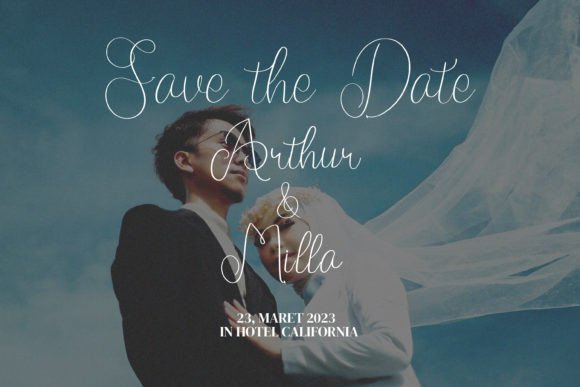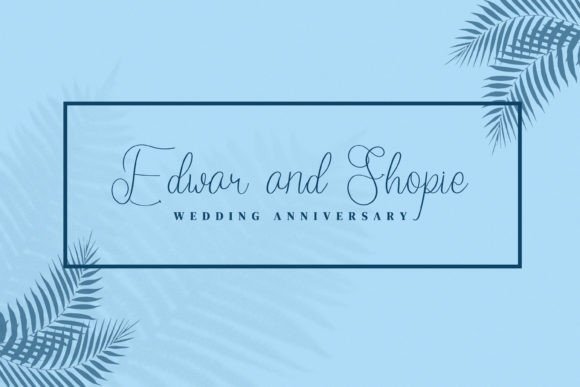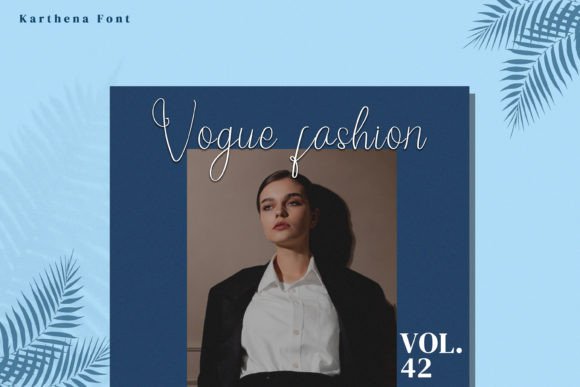
Introduction to Karthena Font
Have you ever been working on a creative project, pouring your heart and soul into every detail, only to realize that the perfect font is missing? This is a common challenge designers face, but today, we’re excited to introduce you to a game-changing design resource: Karthena Font. This elegant and charming script font is sure to elevate your next design project, whether it’s a wedding invitation, a logo, or a simple thank you card.
Karthena Font is a high-quality design asset that’s perfect for adding a handwritten touch to your creative projects. With its beautiful, flowing lines and subtle nuances, this font is sure to capture the attention of your audience. Plus, its versatility makes it an ideal choice for a wide range of designs, from business cards to greeting cards, and everything in between.
Key Features of Karthena Font
- Unique, elegant design suitable for a variety of applications, from logos to typography
Honest Review: Karthena Font
I recently stumbled upon the Karthena Font, a design resource that caught my attention for its unique and elegant style. This high quality font is perfect for any creative project that requires a touch of sophistication and refinement.
- ✨ Beautifully crafted letterforms with a sense of fluidity and movement
- ✨ Highly versatile, suitable for a wide range of design applications, from logos to headings
- ⚠️ Limited character set, which may not be ideal for extensive text-based projects
- ⚠️ Some users may find the font’s style too ornate or distracting in certain contexts
Overall, I’m impressed with the Karthena Font’s potential and versatility. While it may not be perfect for every design project, it’s definitely worth considering for those looking to add a touch of elegance and sophistication to their work.
Karthena Font is ideal for creating eye-catching headings, titles, and logos for your creative projects.